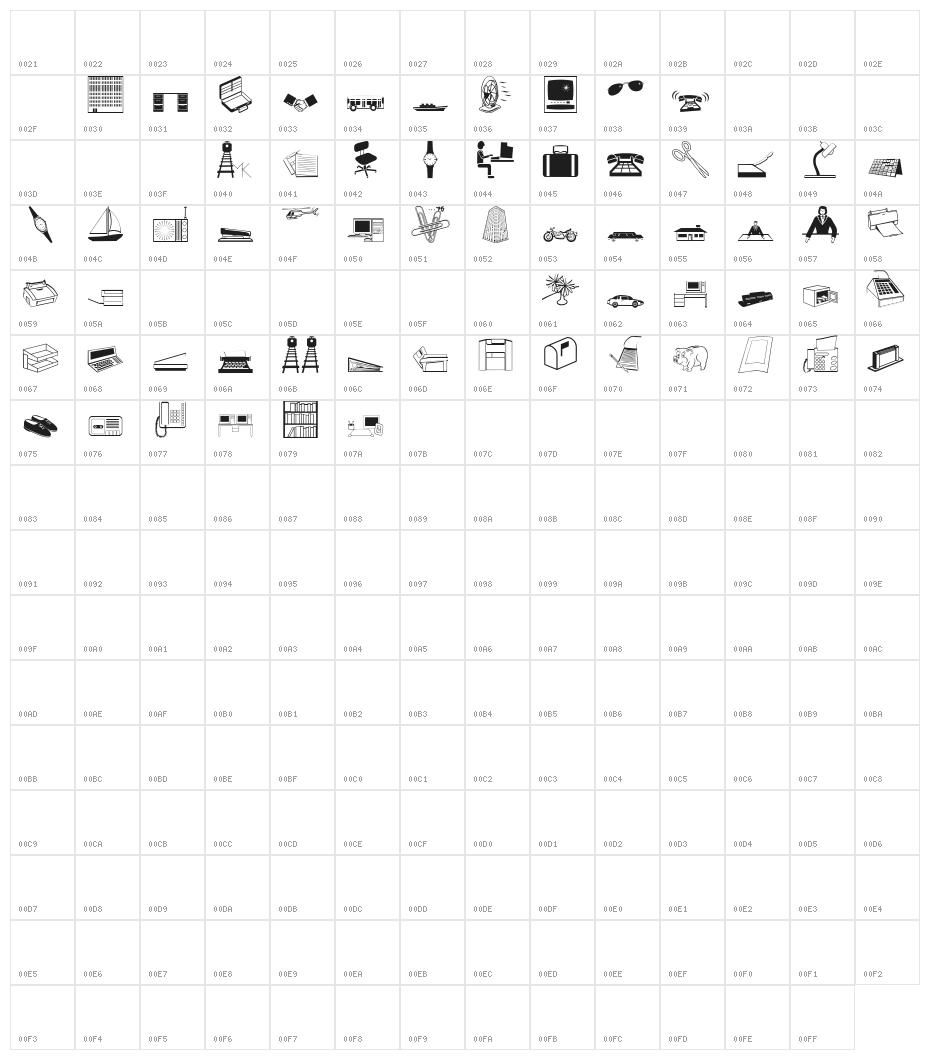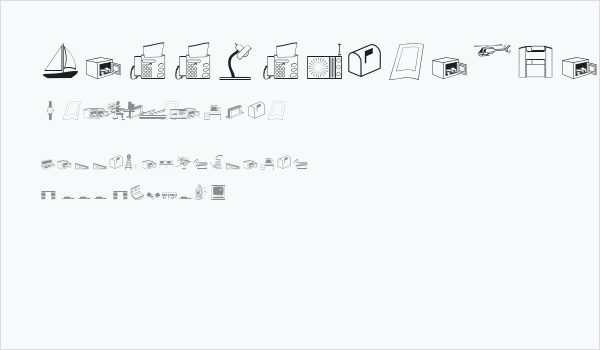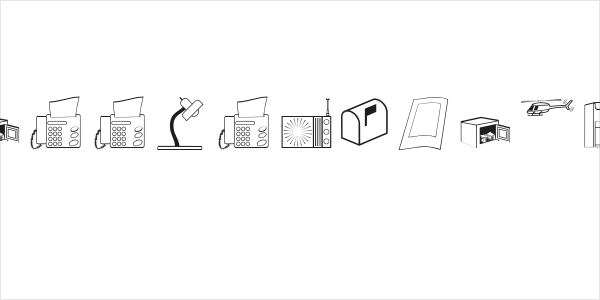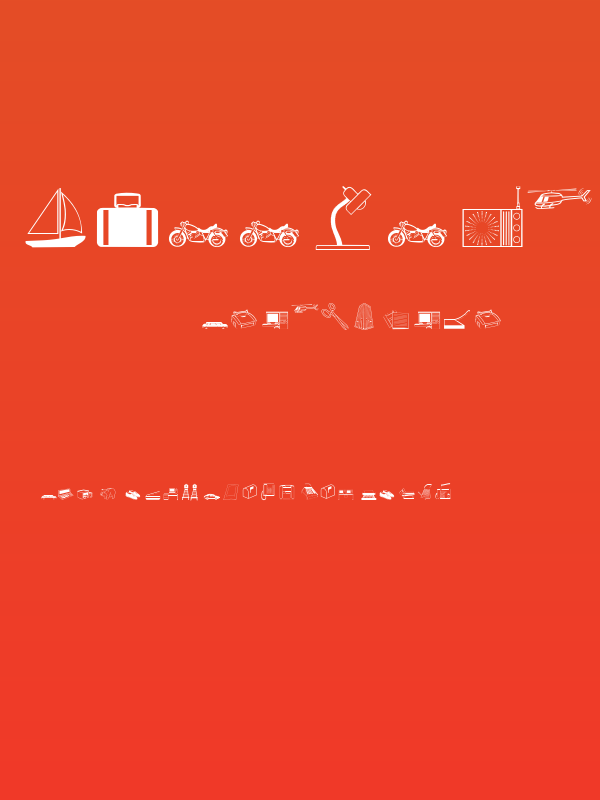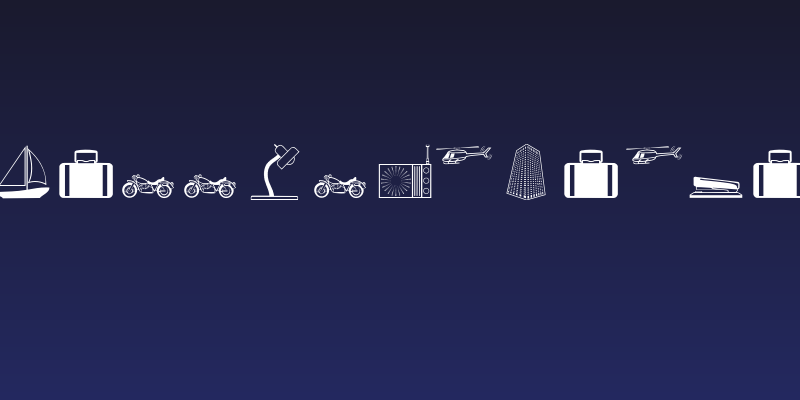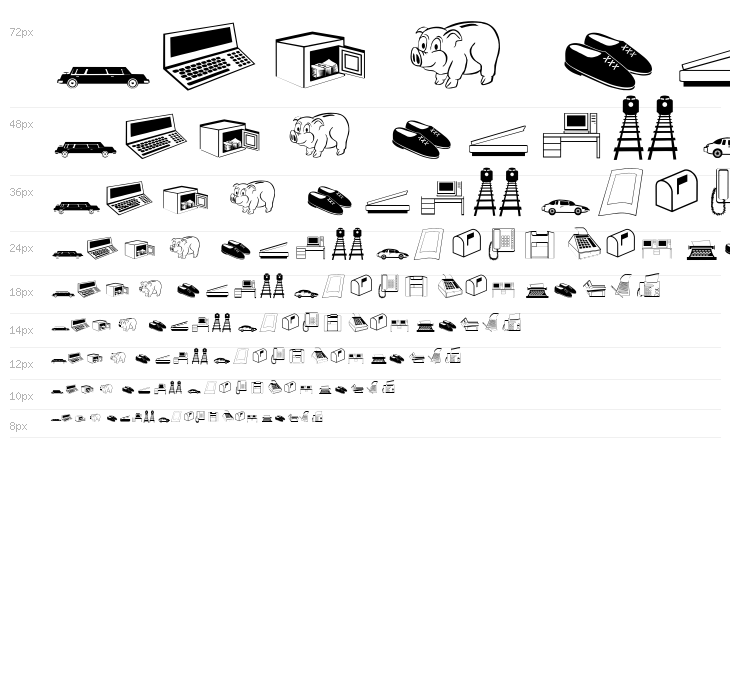
LessIsMoreOne Font
LessIsMoreOne Description
A pictogram-style dingbat font featuring a variety of office, business, and technology-related icons such as desks, computers, telephones, vehicles, and office supplies. Each character is represented by a unique, detailed black-and-white illustration, making it suitable for visual communication and thematic design.
| Overall Style | Decorative, Modern |
| Use Case | Icons, Visual communication, Thematic graphics |
| Proposed Projects | Infographics, business presentations, office signage, educational materials, themed invitations. |